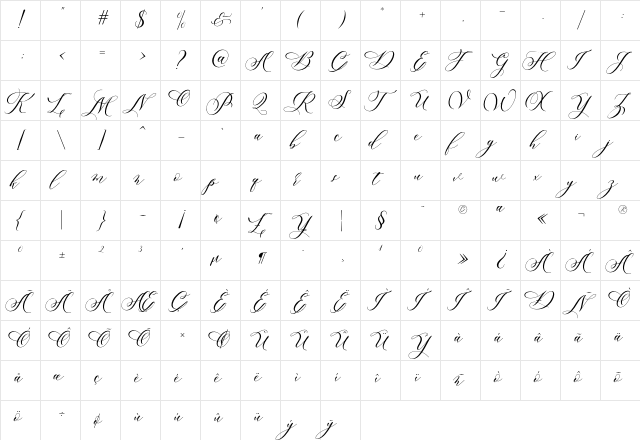
Melanie Script Free Medium
| Foundry | Jamaluddin |
| Designer | Jamaluddin |
Design Context for Melanie Script Free Typeface
Melanie Script Free brings a calligraphic fluidity to the page — its connecting strokes and expressive curves give it an unmistakably human quality.